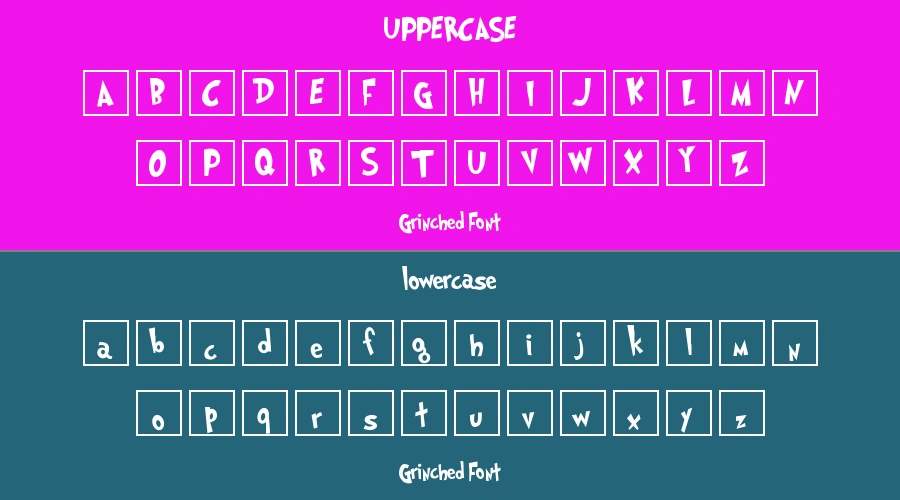
About Grinched Font
When typographic excellence matters most, Grinched Font delivers through its thoughtful blend of strong contrast and reliability. Specially crafted for financial statements, it offers the functionality and quality certification required for sophisticated design work. Every detail serves a purpose.
The character set showcases thoughtful details like transitional forms alongside functional arrow sets. This proves especially valuable in campaign headers, where language switching directly influences results. Particular attention was paid to proportion and contemporary relevance during development.